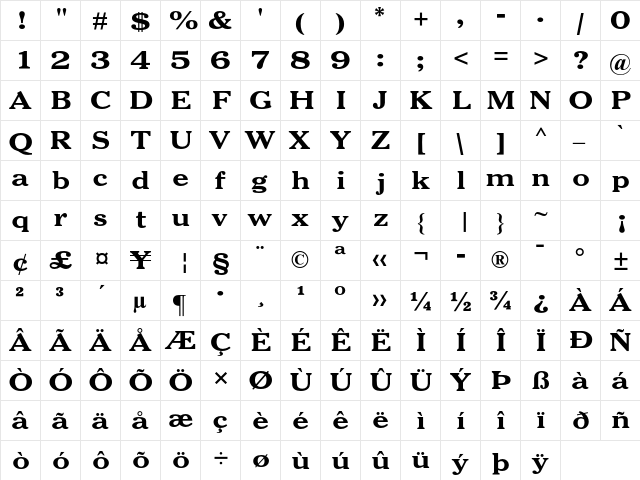
Gloucester MT Std Bold Ext
| Style | Bold Ext |
| Foundry | Agfa Monotype Corporation |
Design Context for Gloucester MT Std Typeface
Gloucester MT Std takes a measured approach to typography — its balanced proportions and neutral character make it a reliable workhorse for both digital and print work. The heavy weight commands attention and anchors typographic hierarchies.